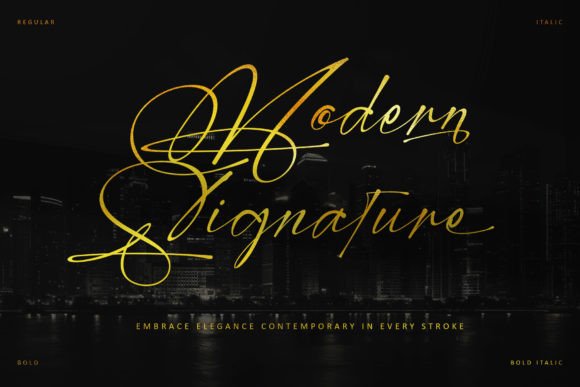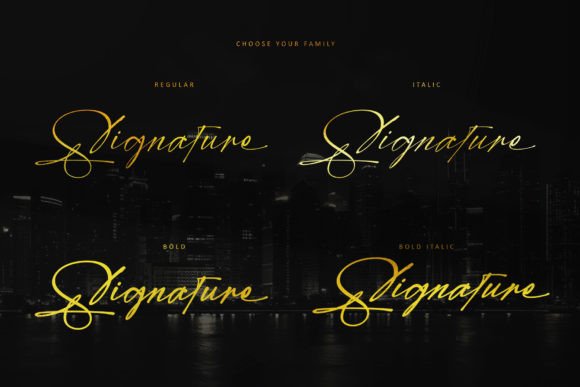
Modern Signature Font
Introducing Modern Signature, a captivating handwritten font that exudes elegance and sophistication. With its fluid strokes and impeccable letterforms, this font adds a personal touch and authenticity to your projects. Whether it’s for branding, packaging, invitations, music albums, logos, or any creative endeavor that requires a touch of class, “Modern Signature” elevates your designs with its charm. Embrace the uniqueness and timeless beauty of Modern Signature, and leave a lasting impression.